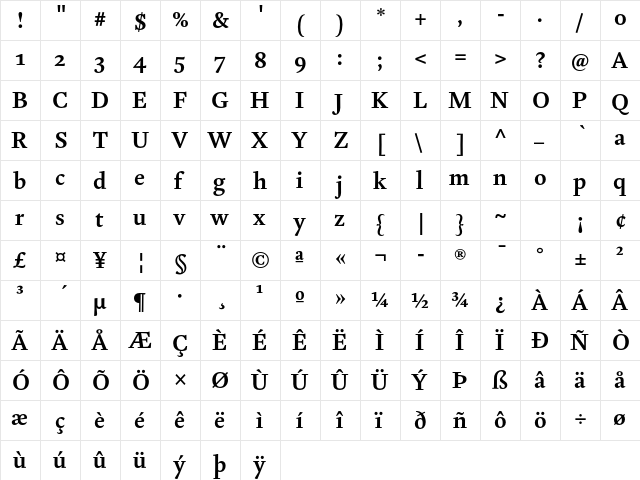
Kingfisher Bold
| Designer | Jeremy Tankard |
Design Context for Kingfisher Typeface
Kingfisher takes a measured approach to typography — its balanced proportions and neutral character make it a reliable workhorse for both digital and print work. Its bold stroke weight gives it real presence on the page.
Pro Tip: Pair Kingfisher with a font of contrasting weight or personality to build a more expressive typographic hierarchy.